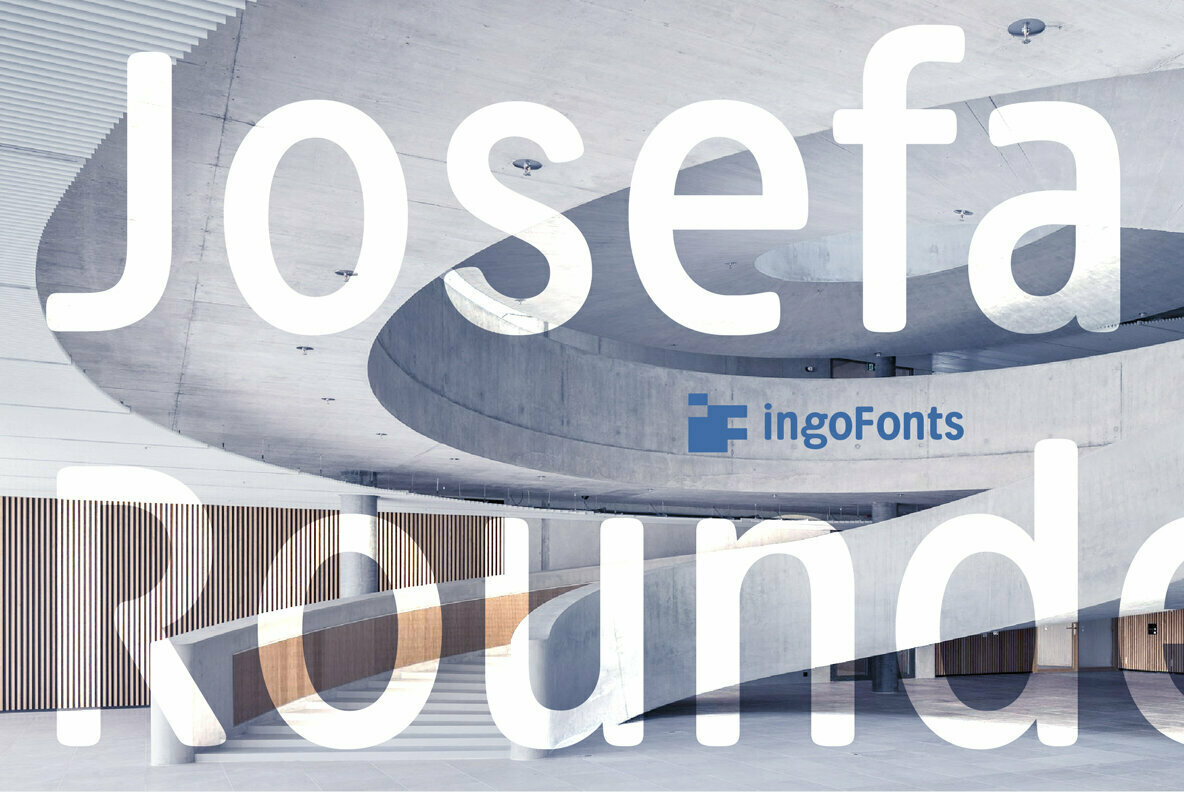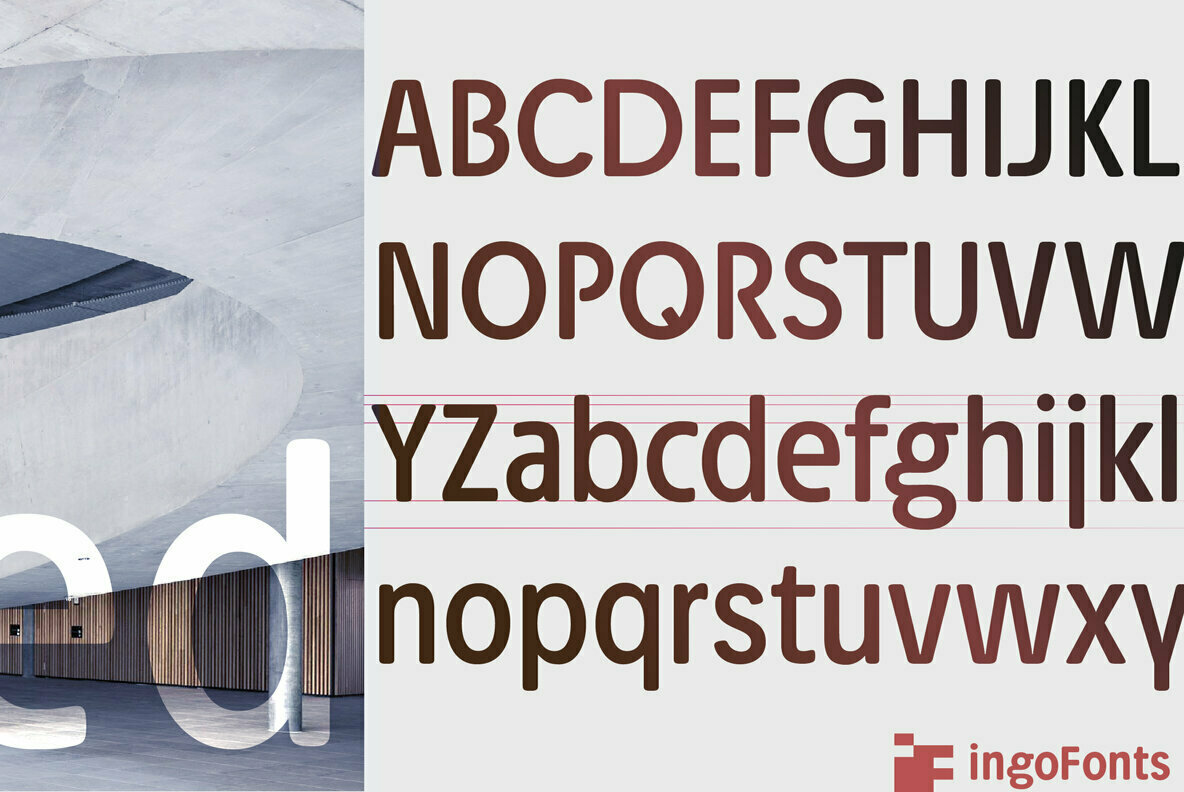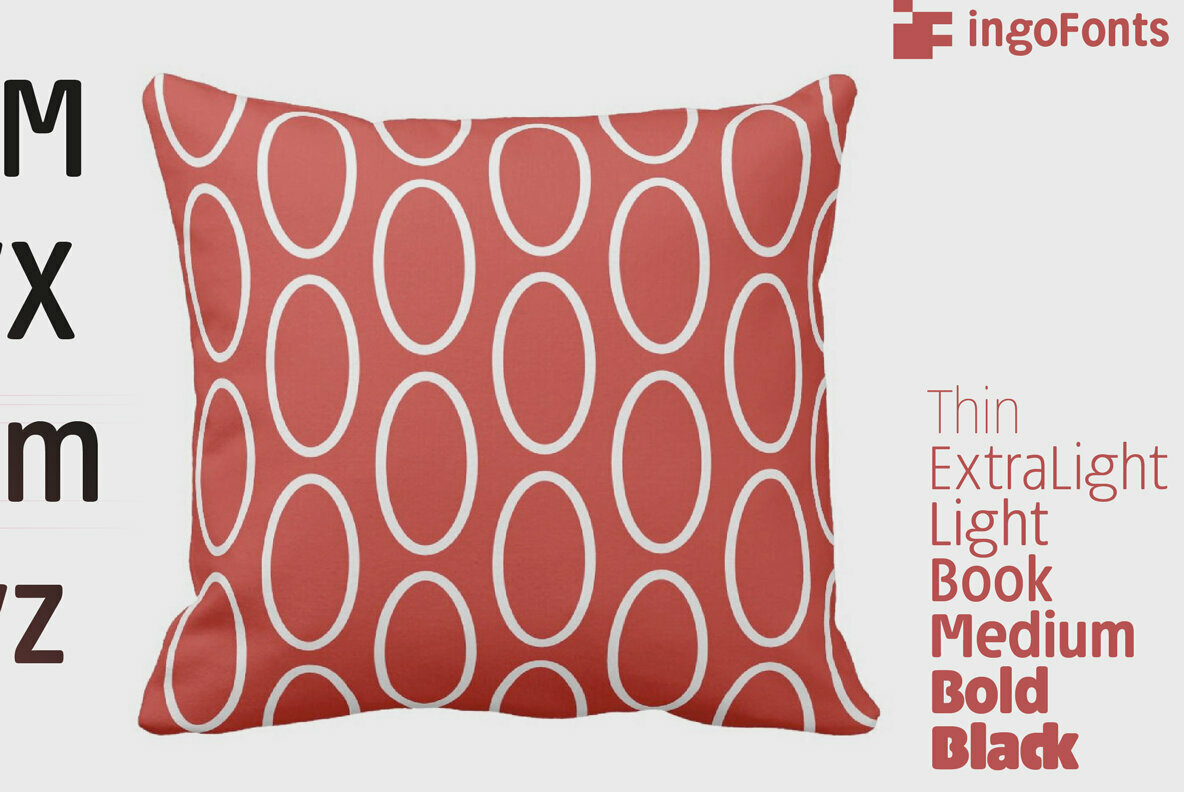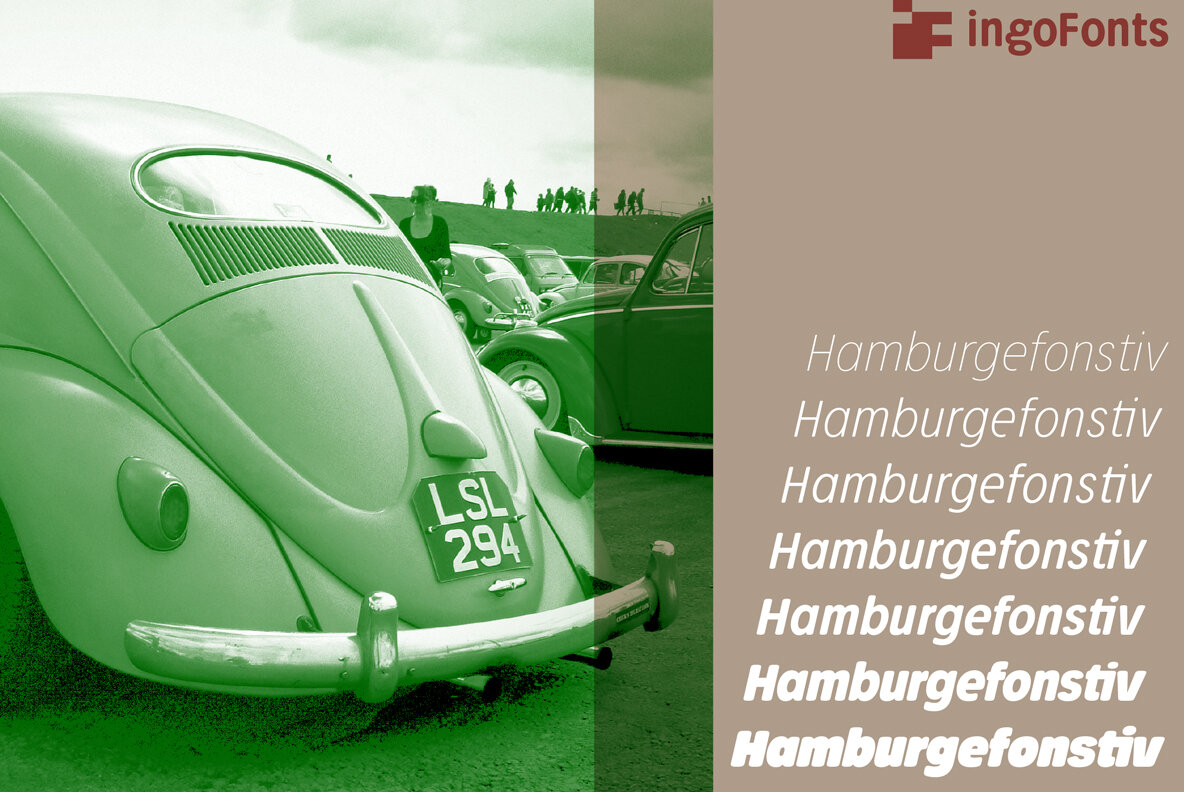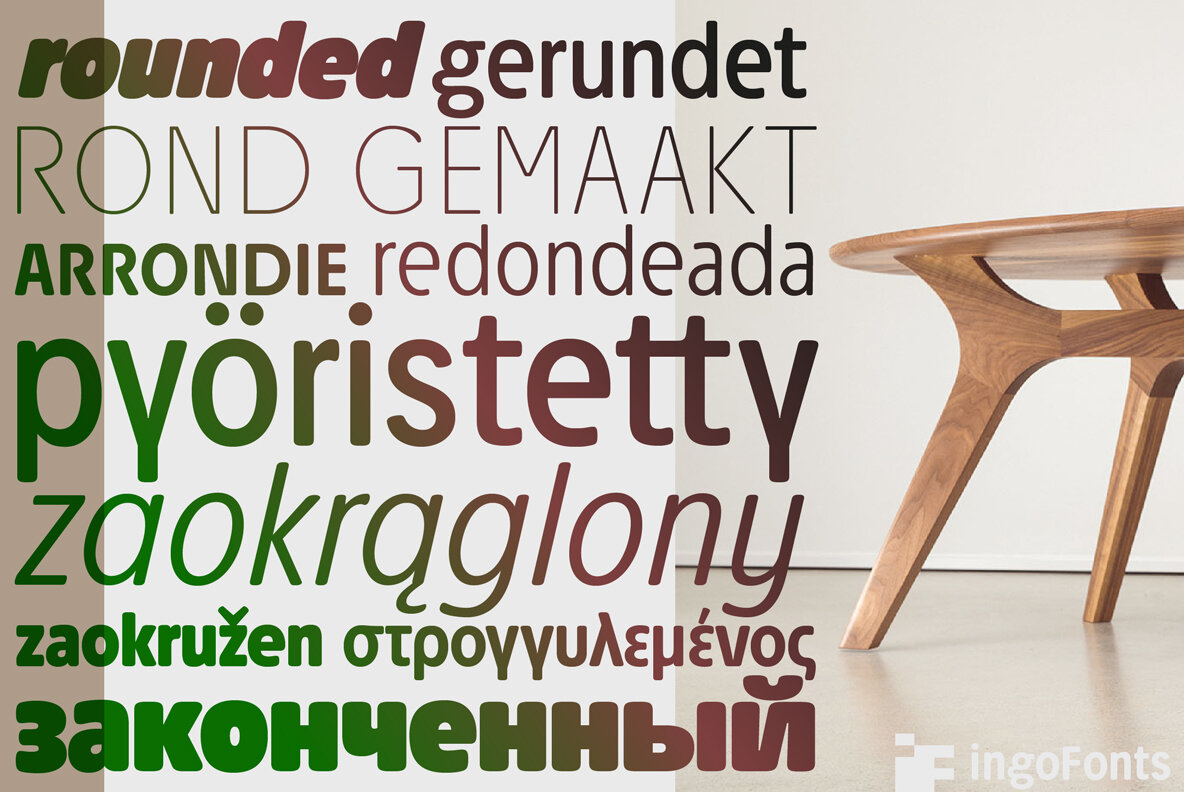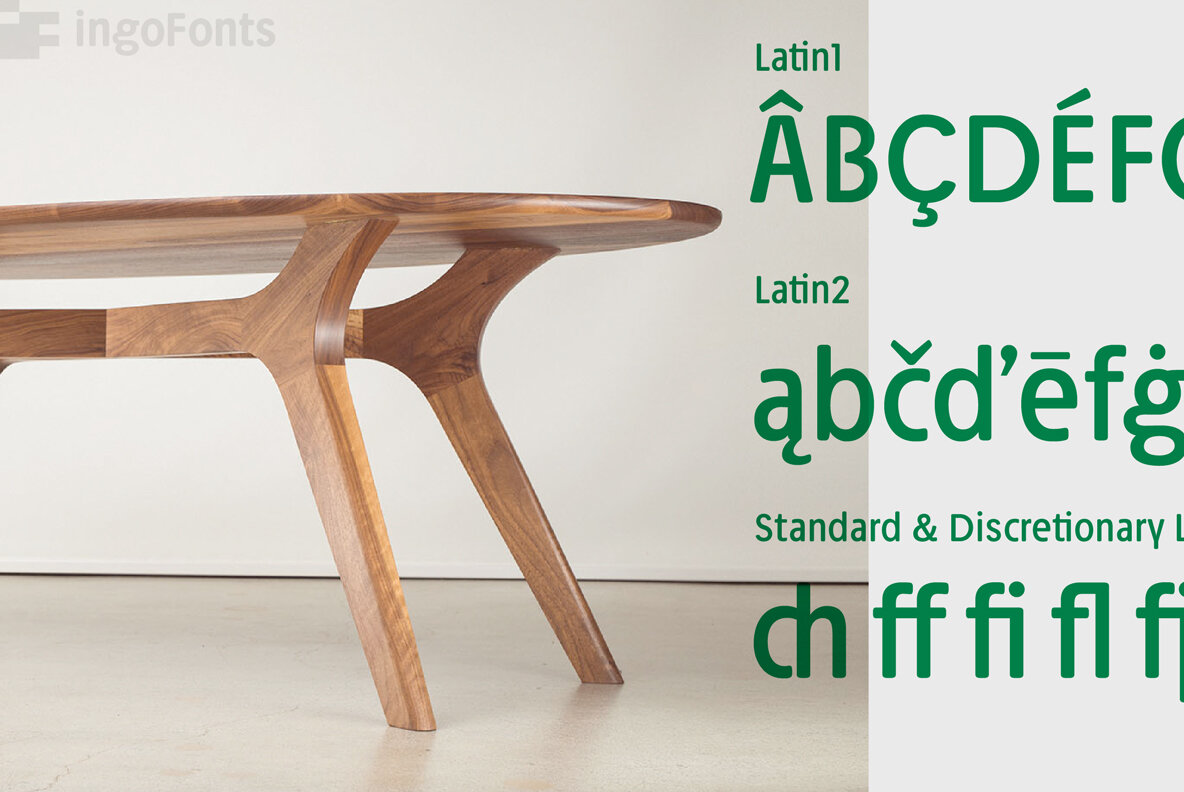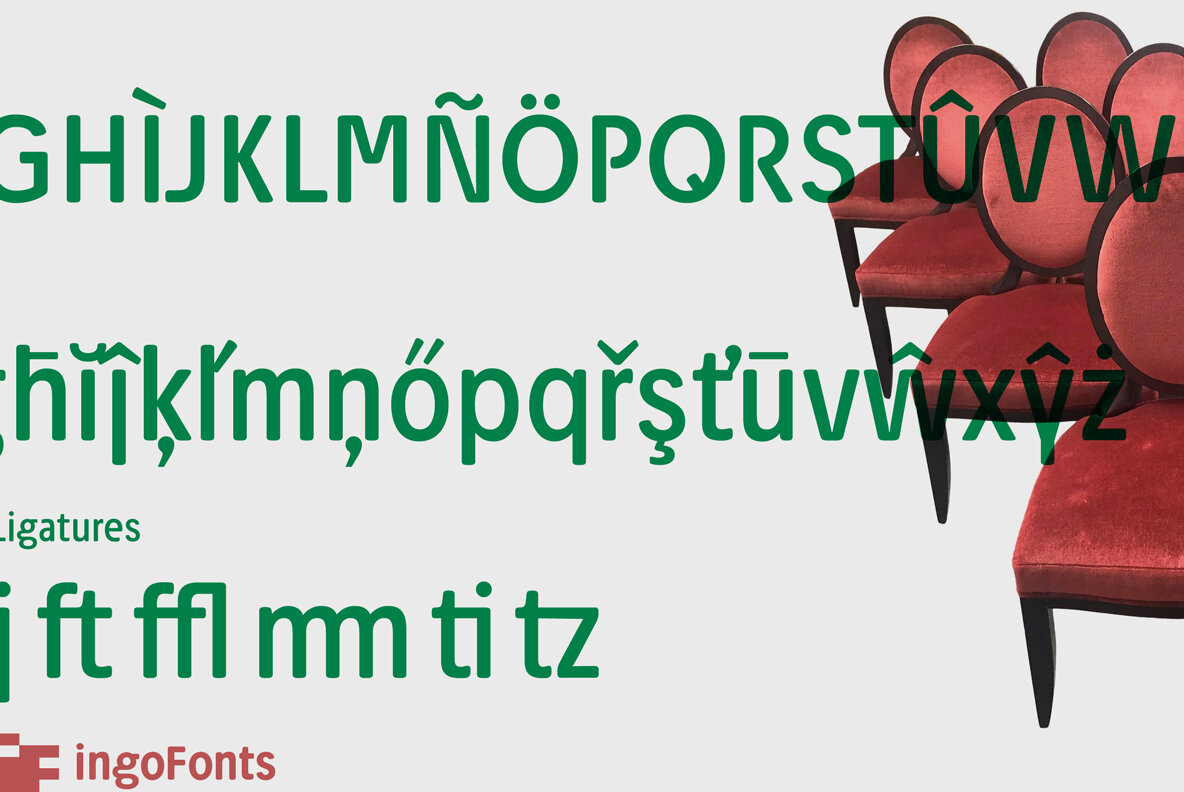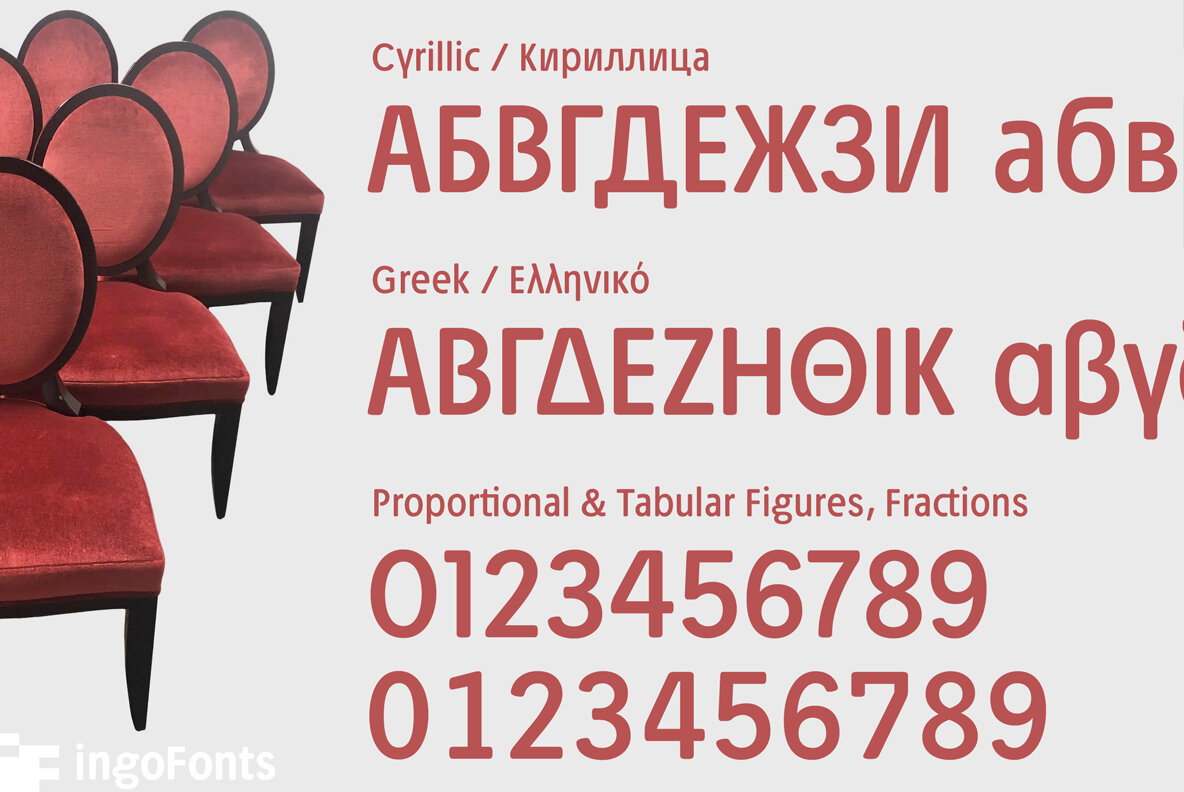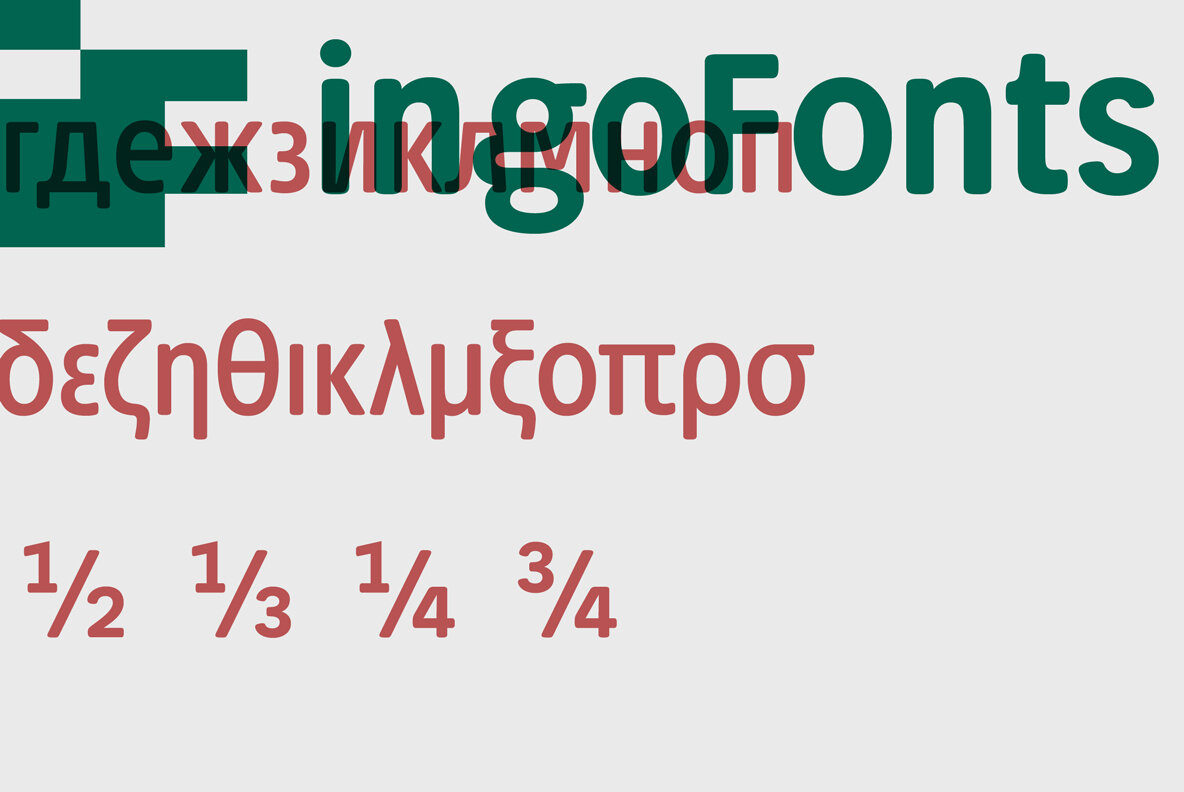
Josefa Rounded Pro Font
A sans serif without rough edges.
Josefa Rounded is a beautiful text typeface. It’s unostentatious forms and balanced narrow proportions along with the softened round edges make it to appear gentle and pleasing even in longer texts.
- Modern, very legible
- Narrow proportions
- High x-height
- Distinctive forms
Determining for the personality of Josefa Rounded are also particular idiosyncratic letters. For instance B P and R is designed openly; the bars of E and F equal each other; lower case c and e are distinctly withdrawn in their lower zone; y is symmetrical.
Short ascenders generate compact word images. Cap height is shorter than the ascenders, so capitals are only little higher than x-height.
Josefa Rounded is provided in 7 weights including the corresponding italics.
Tabular figures and proportional figures are available through the appropriate OpenType function as well as ligatures and discretional ligatures.